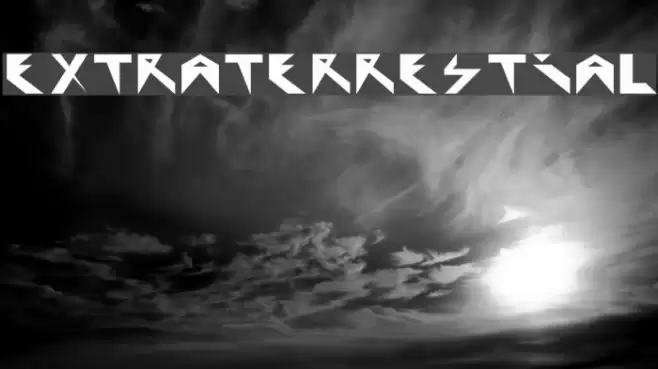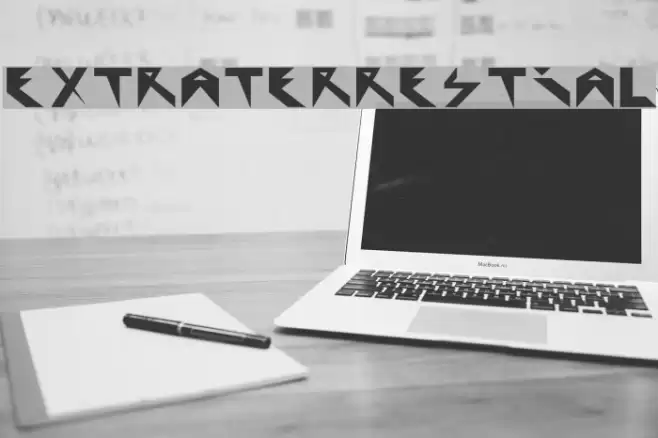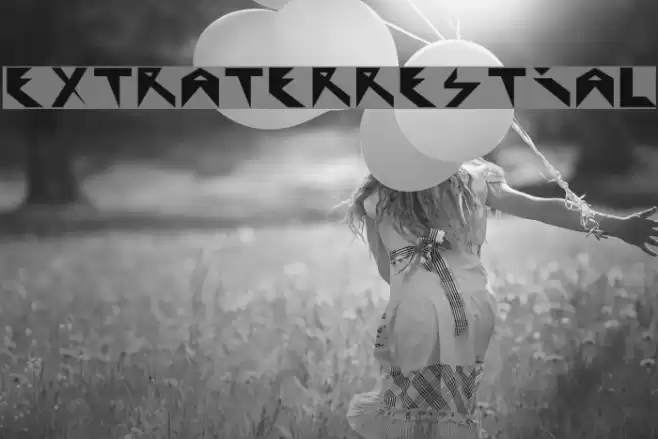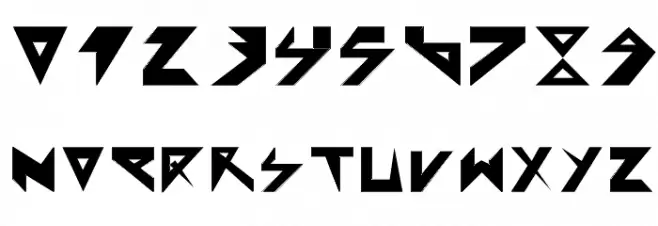
Extraterrestial Font
Extraterrestial Description
This font features a bold, angular design with sharp, geometric edges that give it a futuristic and alien-like appearance. The characters are constructed with a series of straight lines and pointed angles, creating a sense of movement and energy. The uppercase and lowercase letters maintain a consistent style, with unique variations that distinguish each character. Numbers and special characters follow the same angular theme, ensuring uniformity across the font. The overall design is striking and unconventional, making it ideal for projects that require a standout, modern aesthetic.
A bold, angular font with a futuristic, geometric design from Uncategorized fonts.
- Proposed Projects: Ideal for sci-fi themed posters, video game titles, futuristic branding, and any project requiring a modern, standout typeface.
- Overall Style: Futuristic, Modern